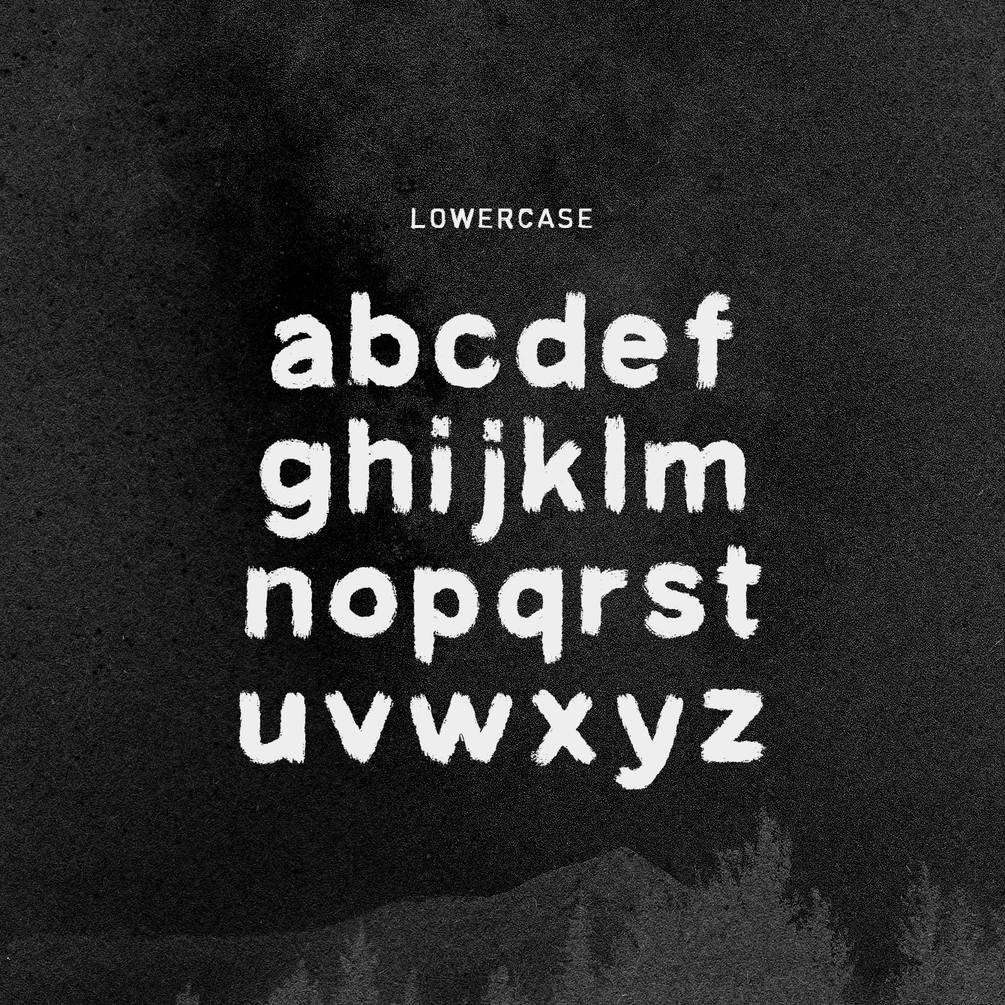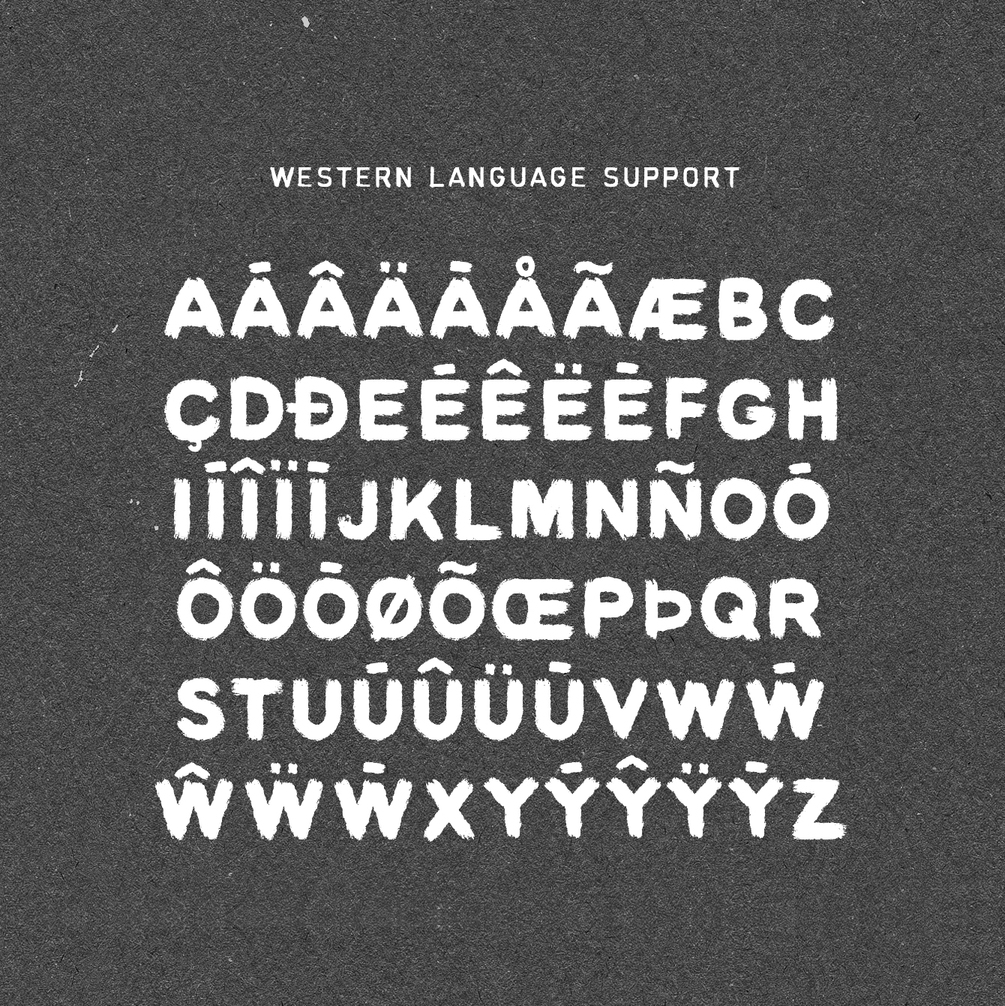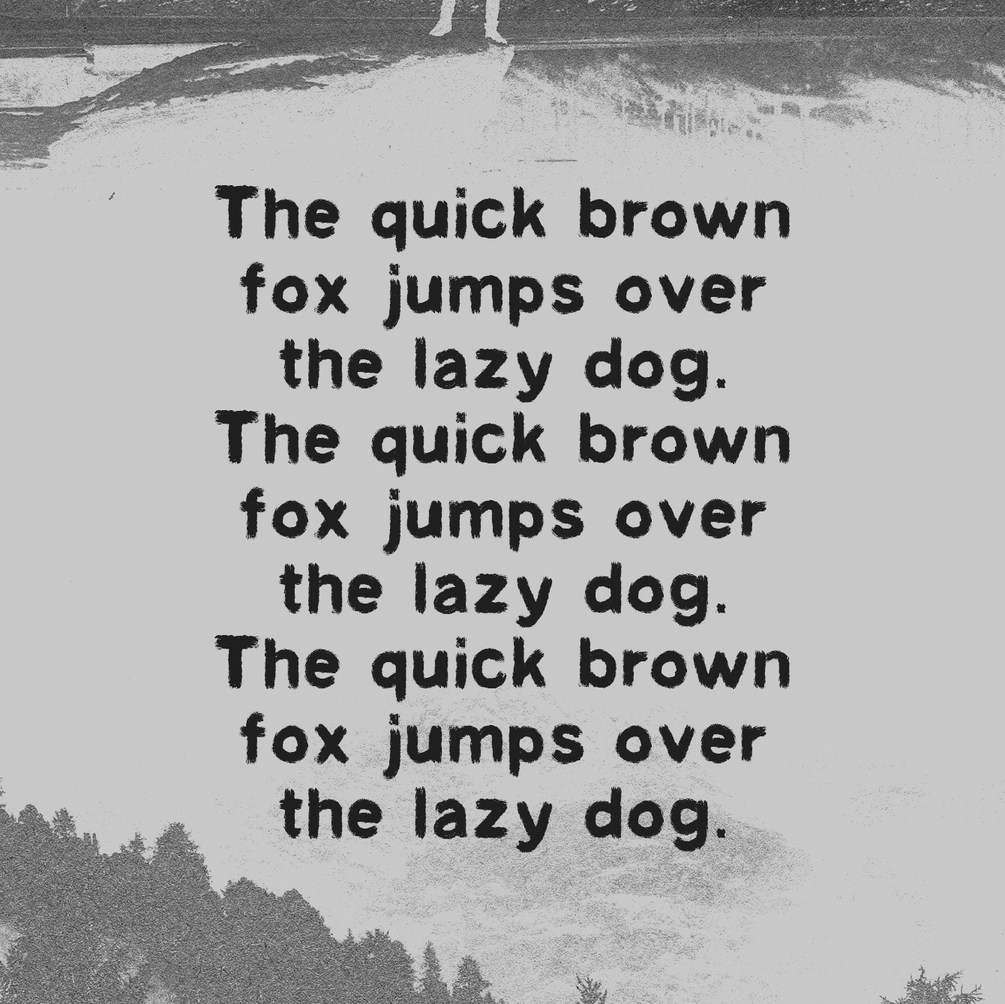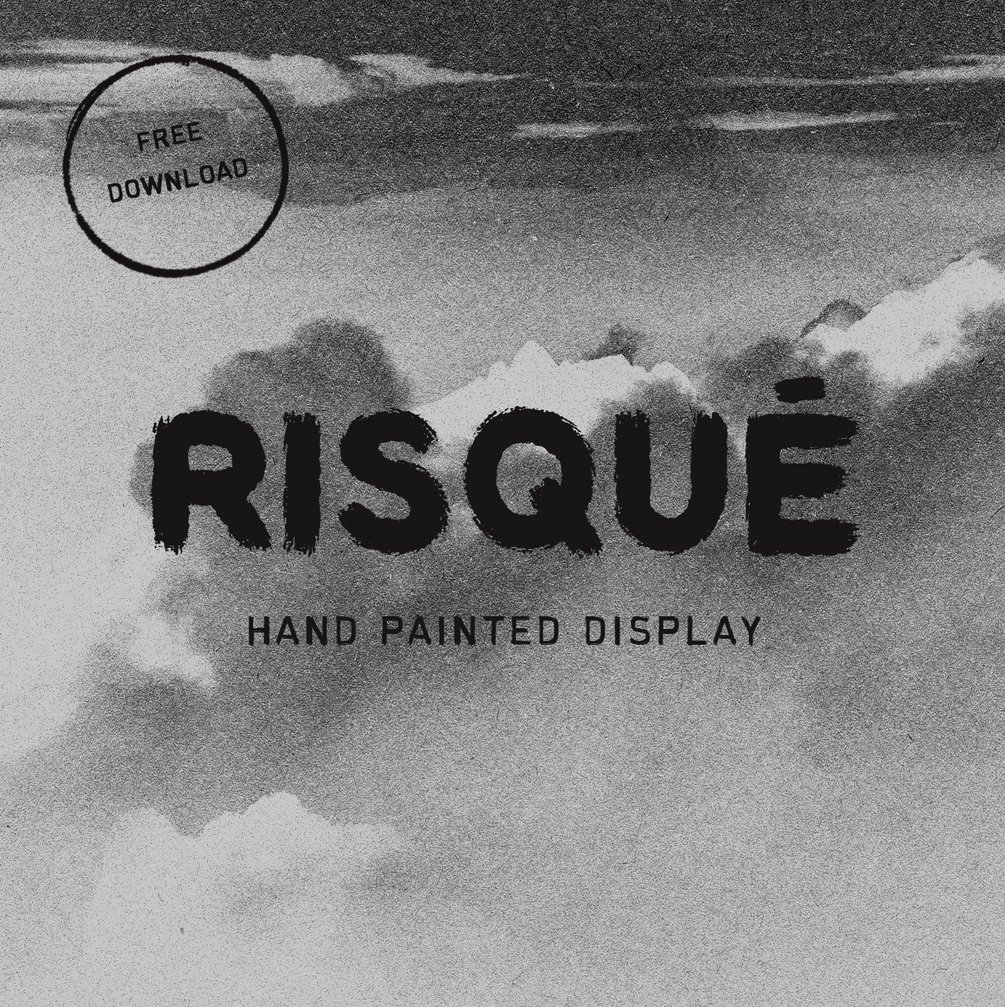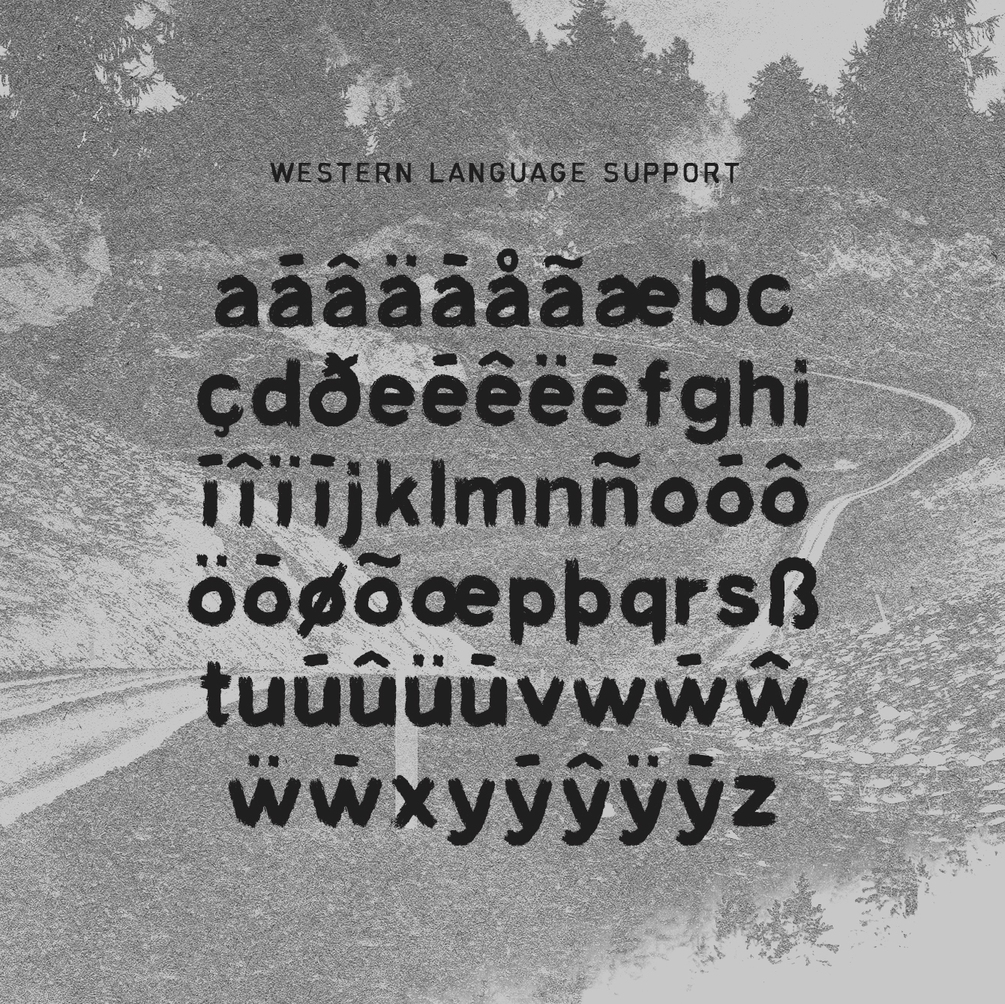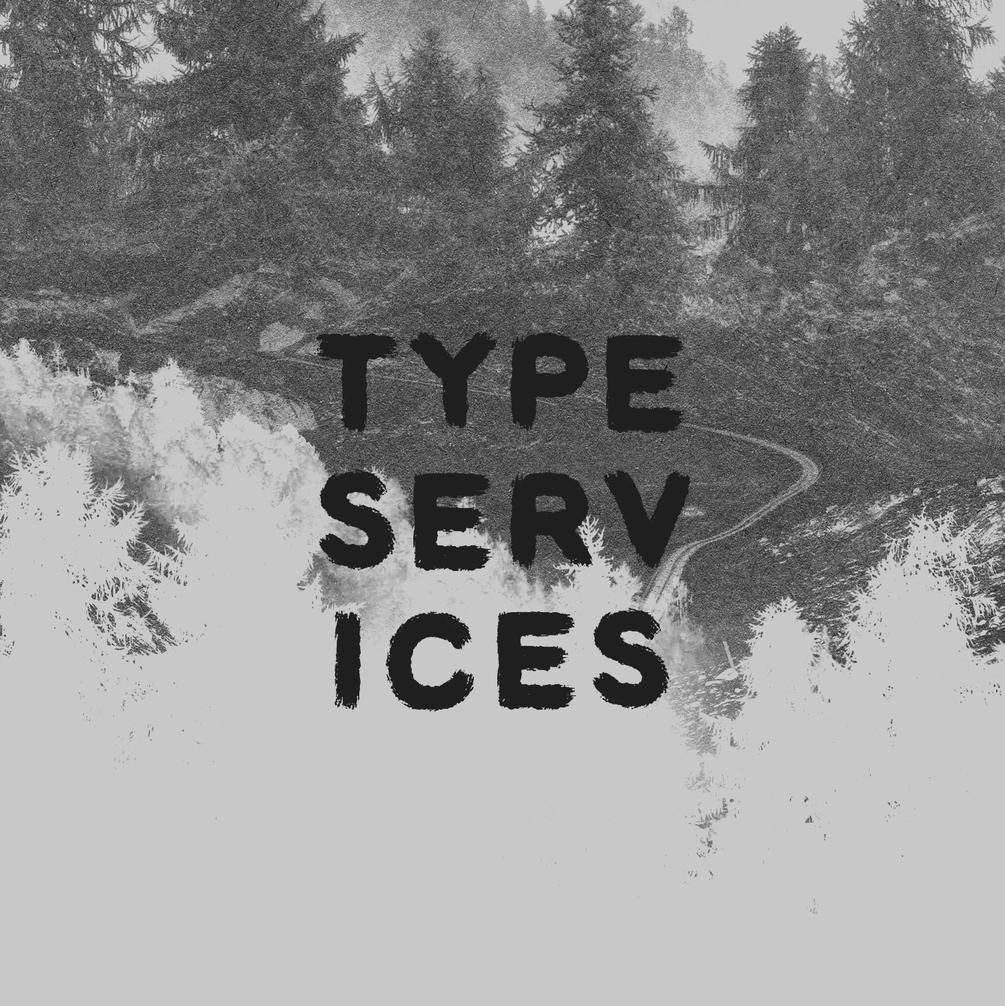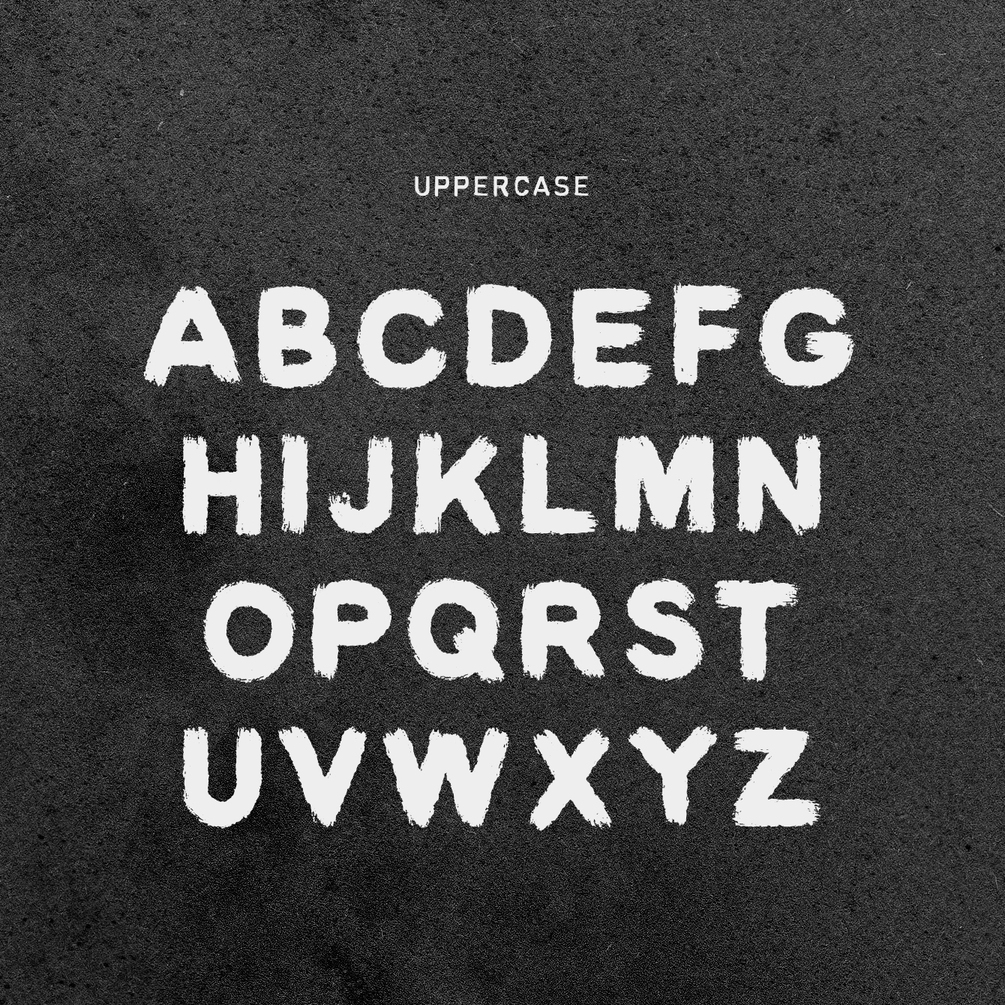
RISQUÉ — FREE Hand Painted Display Font
RISQUÉ is hand painted san-serif font, perfect for display use in a wide range of creative projects and graphic application including posters, digital painting, illustration, signage and more.
Hand painted using oil pastel, each glyph is full of character and unique textures. It an ideal font for use on any digital project which requires the text with a hand made feel.
- Upper, Lowercase
- Western European Language Support
- Punctuation, Symbols and Marks